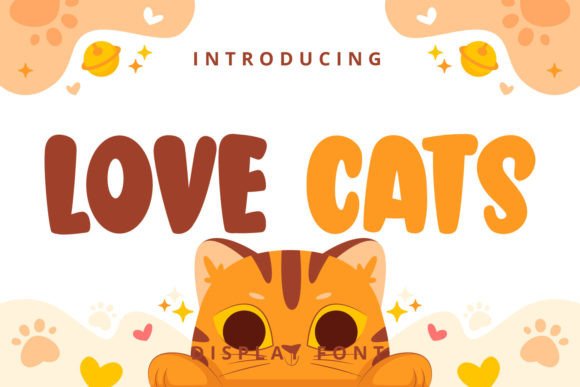
In a world where digital communication reigns supreme, the choice of font holds immense power in conveying emotions and capturing attention. Enter Love Cats Font - a display font that exudes a charm as captivating as its namesake. This whimsical typeface possesses an uncanny ability to transform ordinary words into heartfelt messages and heartfelt expressions into unforgettable experiences.
Love Cats Font is not just a collection of letters and symbols; it's an artistic masterpiece meticulously crafted to evoke a sense of joy, warmth, and lightheartedness. Each character dances across the screen with a playful spirit, reminiscent of carefree childhood days filled with laughter and love. Whether you're a budding designer, a seasoned professional, or simply someone seeking a touch of whimsy, Love Cats Font is your perfect companion.
Its playful curves and cheerful strokes inject a dose of personality into any project, making it an ideal choice for children's books, greeting cards, invitations, posters, and social media graphics. Imagine your words taking flight, adorned with the irresistible charm of Love Cats Font, leaving a trail of smiles and heartwarming impressions wherever they go.
But Love Cats Font's allure extends far beyond its aesthetic appeal. Its versatility knows no bounds, making it suitable for a wide range of creative endeavors. Whether you're crafting a heartfelt love letter, designing a whimsical logo, or creating eye-catching marketing materials, Love Cats Font is your trusty ally, ready to elevate your creations to new heights.
With its effortless charm and universal appeal, Love Cats Font has the power to transform the mundane into the extraordinary. So, embrace the joy, spread the love, and let your creativity soar with Love Cats Font - the font that speaks to the heart and ignites imagination.